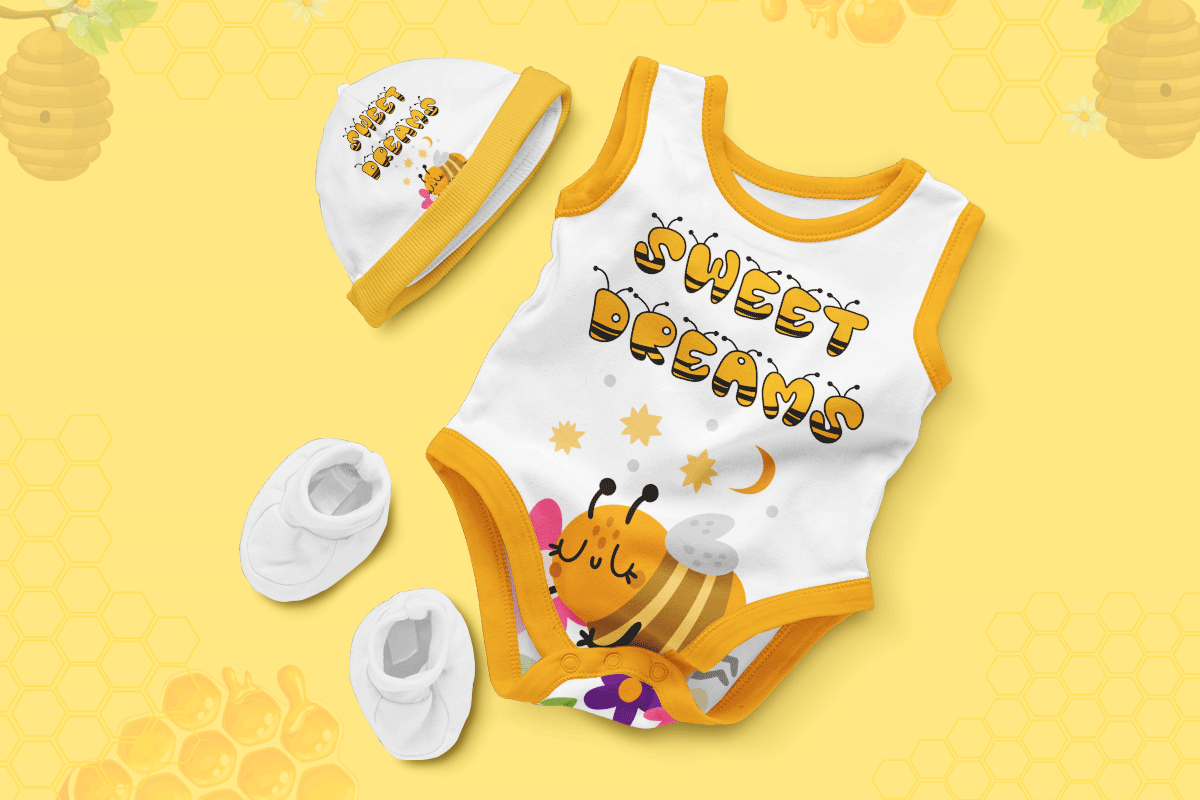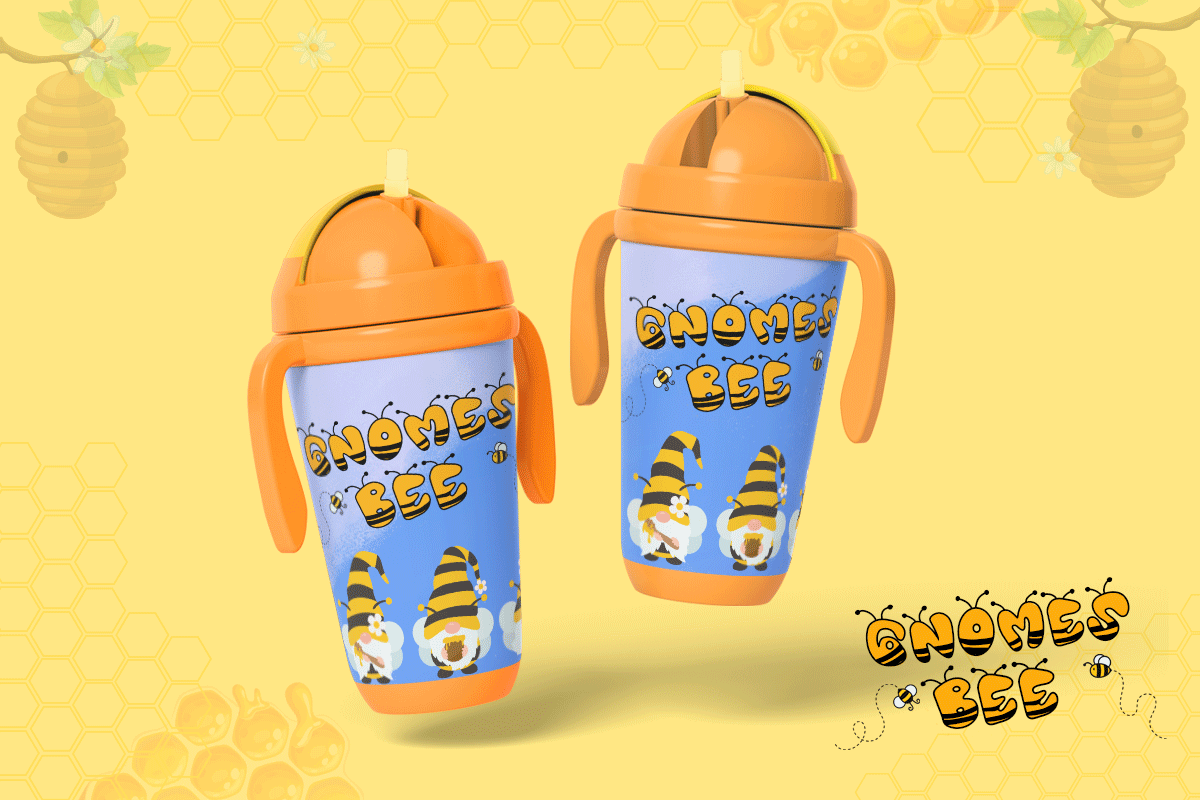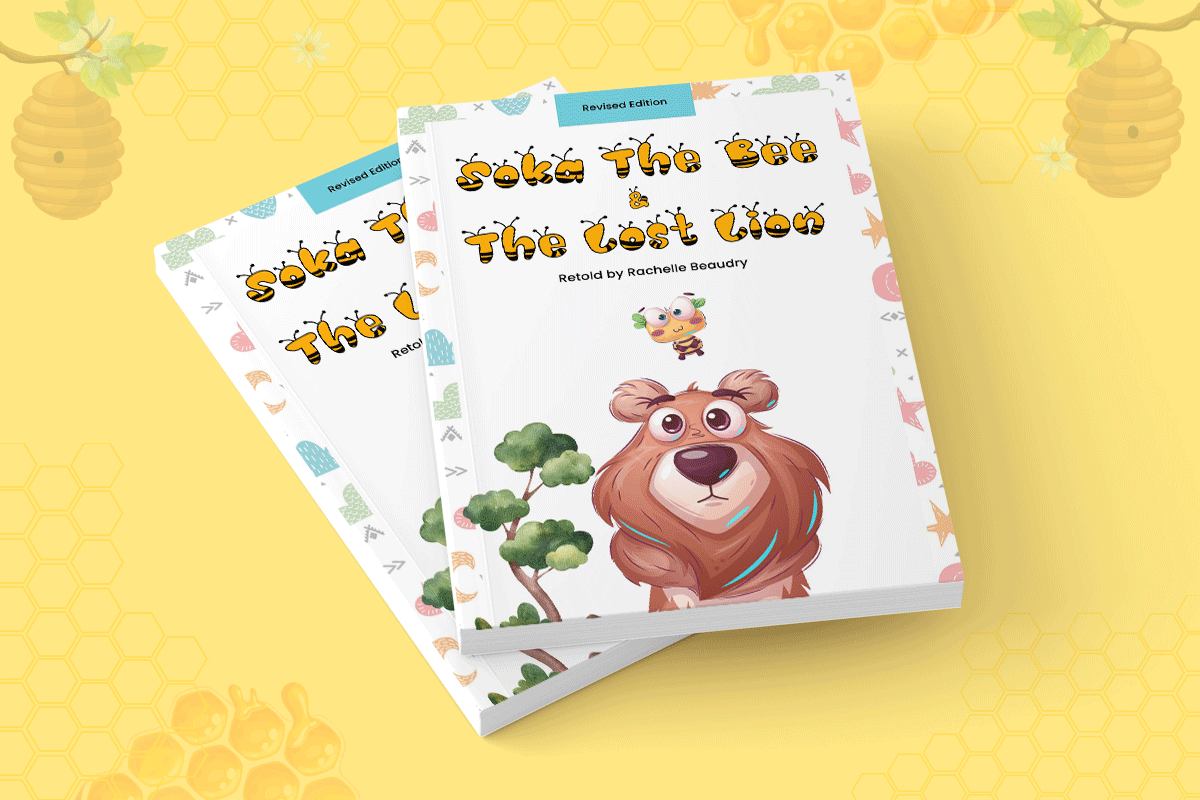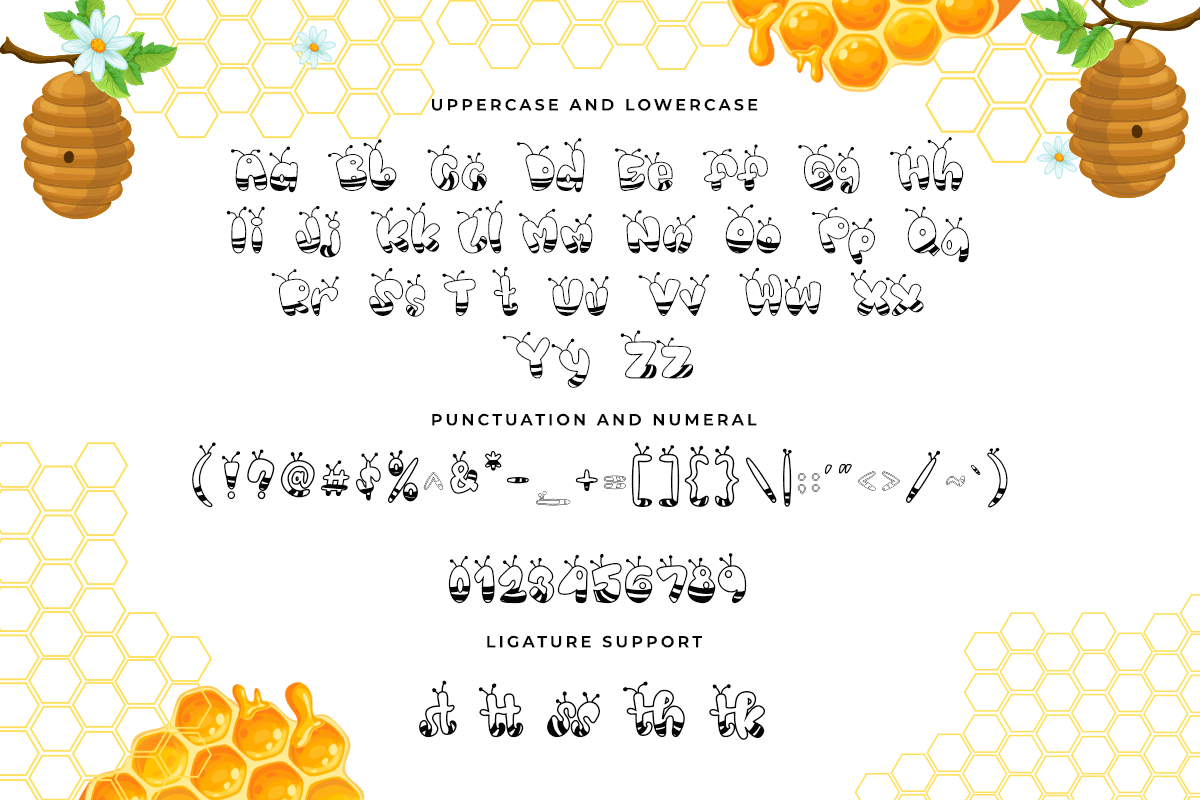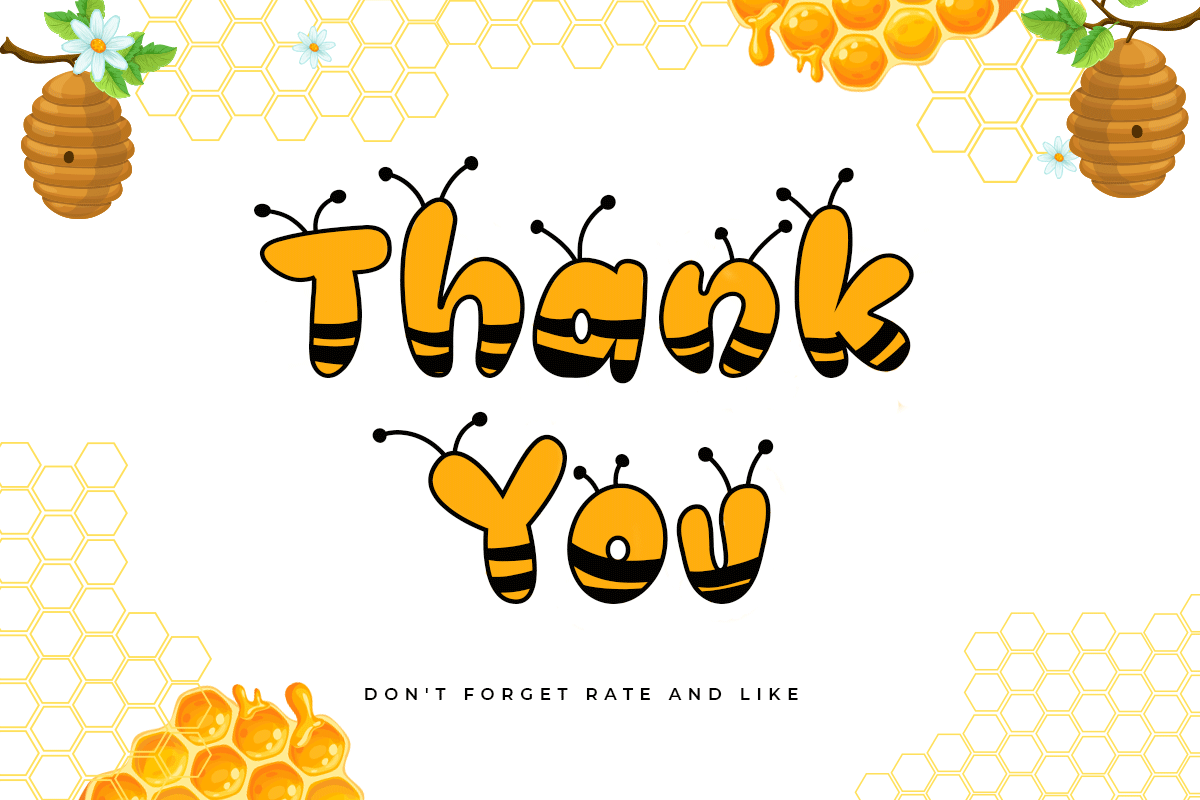
KidsBee Cute Decorative Font Please welcome Kids Bee, our fun and decorative typeface designed for kids' logos and lettering. Created with playful lines and soft-looking edges and corners, Kids Bee is our lighthearted typeface design which embodies a fun-loving character in children. This typeface has some unique characteristics, the bee antennae and the familiar bee stripes on its lower anatomy. This unique design language makes the typeface looks cute and fun, very suitable to be put on kids drinking bottles or t-shirt designs. Any brands with young children or kids as their target market may use this typeface on their packaging. They can use this typeface on the brand name or in their merchandise. You can use Kids Bee for children's book covers, children's toy packaging, and other print media. Its playful design will also attract children's attention at school when you need to create wall decorations or learning events, so you can create a fun learning atmosphere for the students. If one of your students is having a birthday celebration in class, be sure to pick this typeface to make your celebration more gleeful and jolly. Our collections of decorative fonts are compatible use as Figma fonts, Canva fonts, Freepik Fonts, and Adobe Fonts]. They also work as Windows Fonts, and Apple Fonts. For your social media needs, you can use and install fonts in our collection of Decorative fonts to use as Instagram Fonts, Facebook Fonts, and Twitter Fonts.